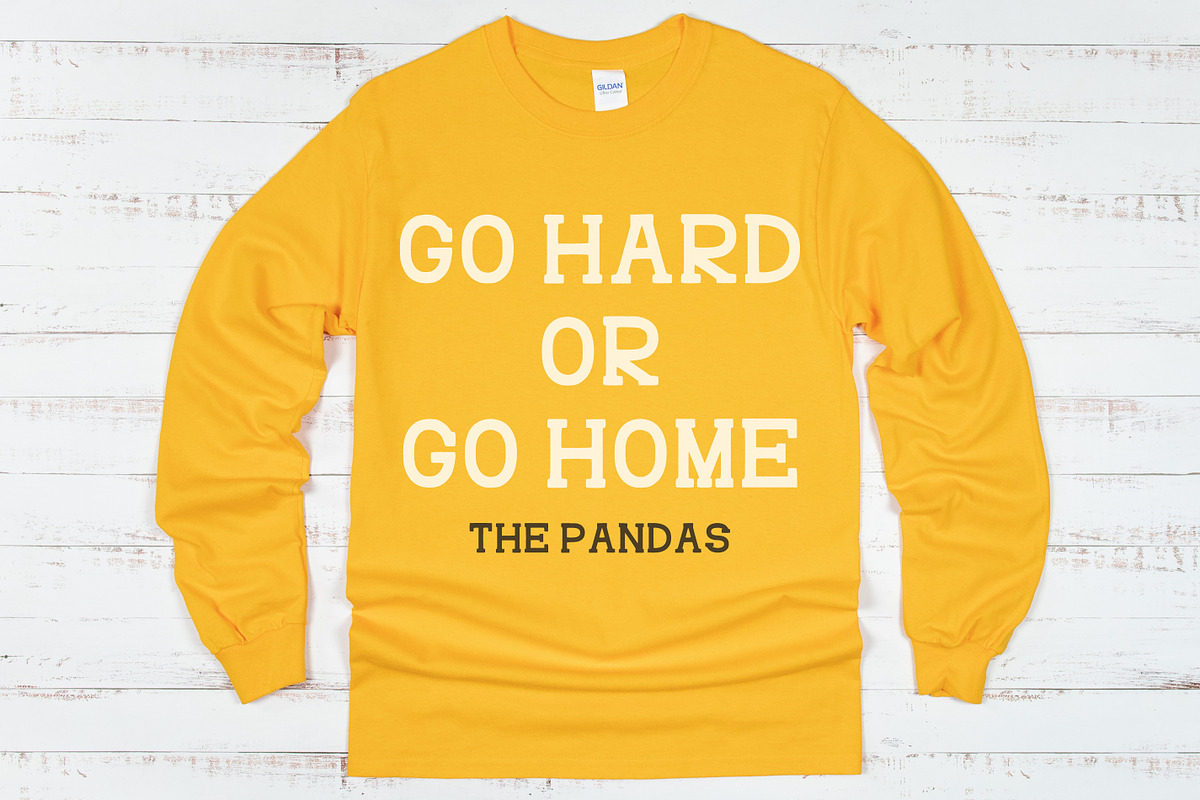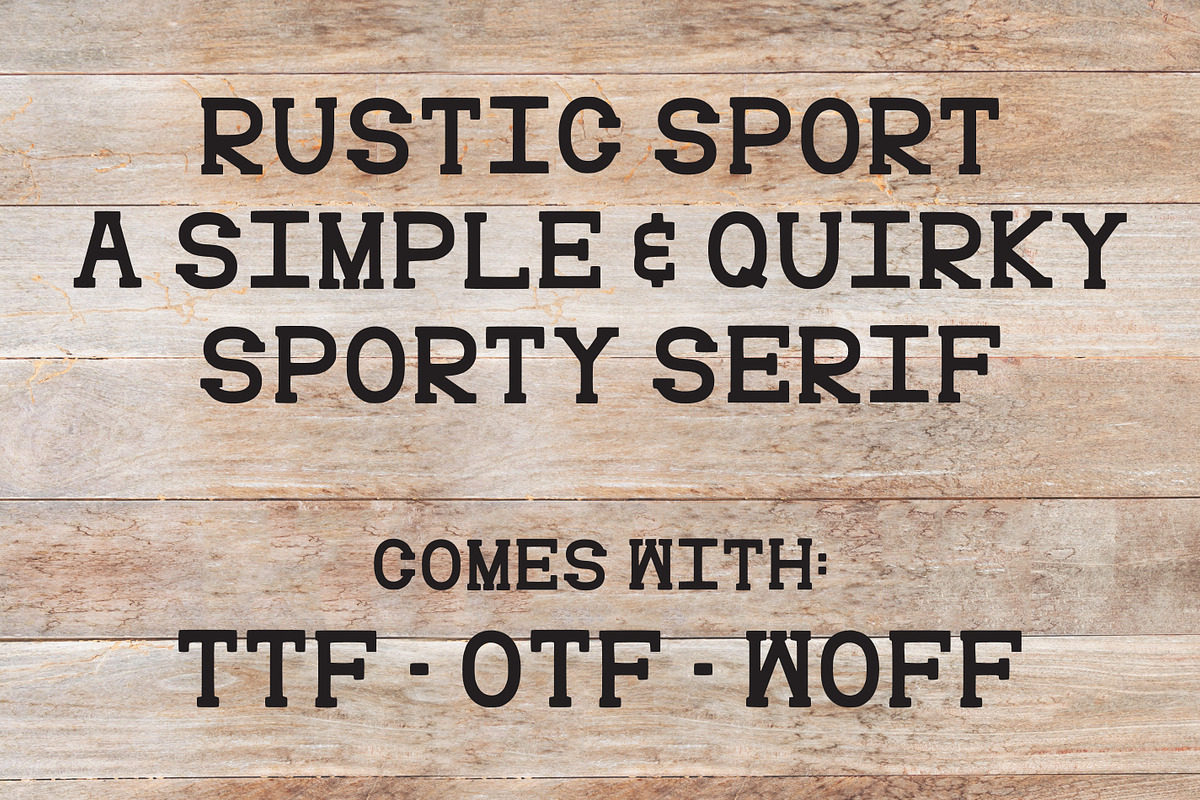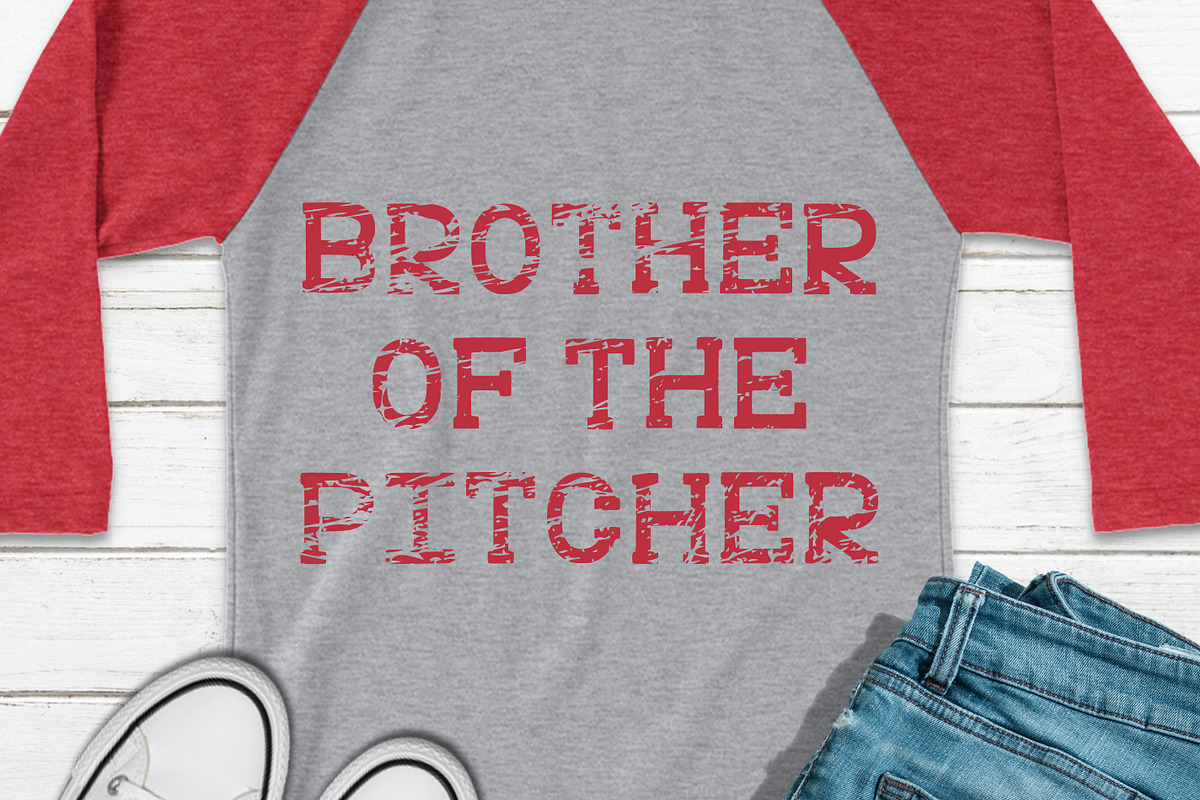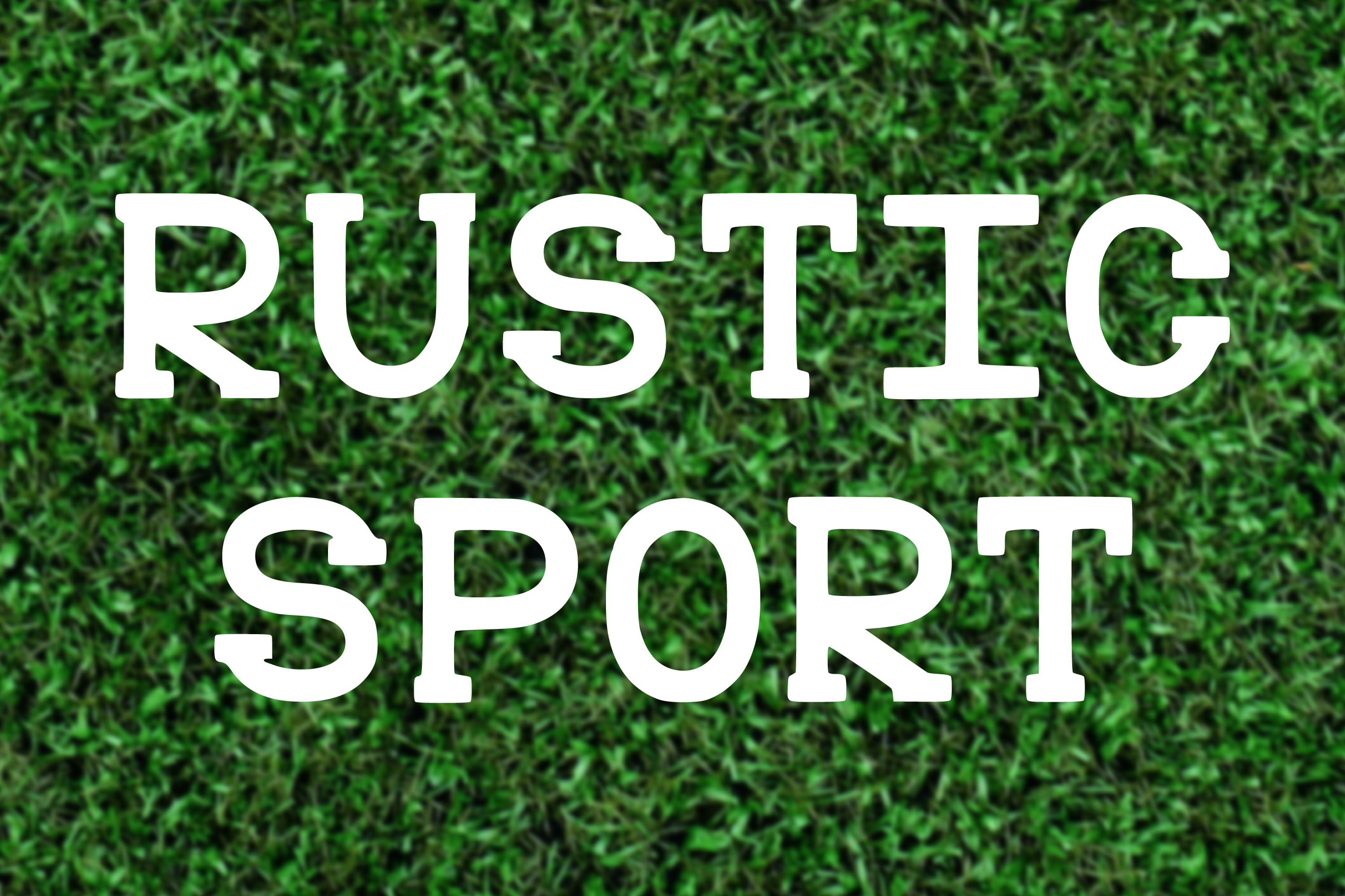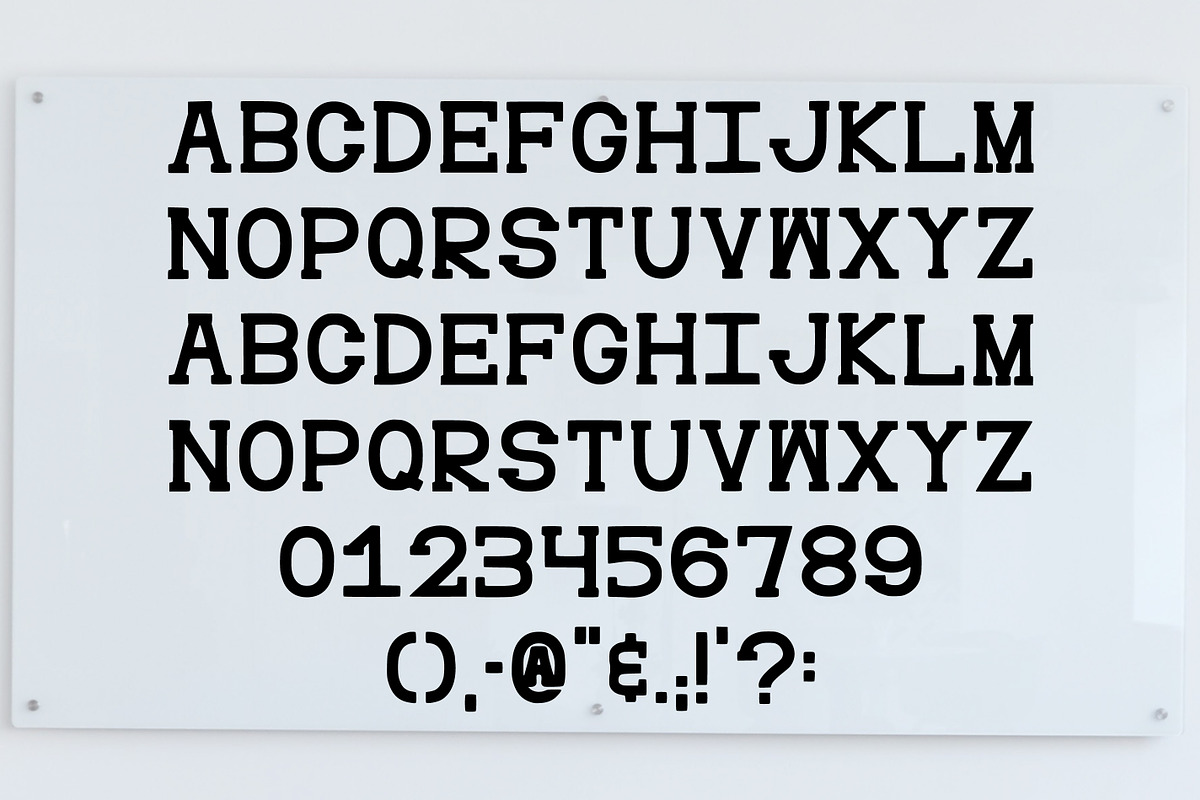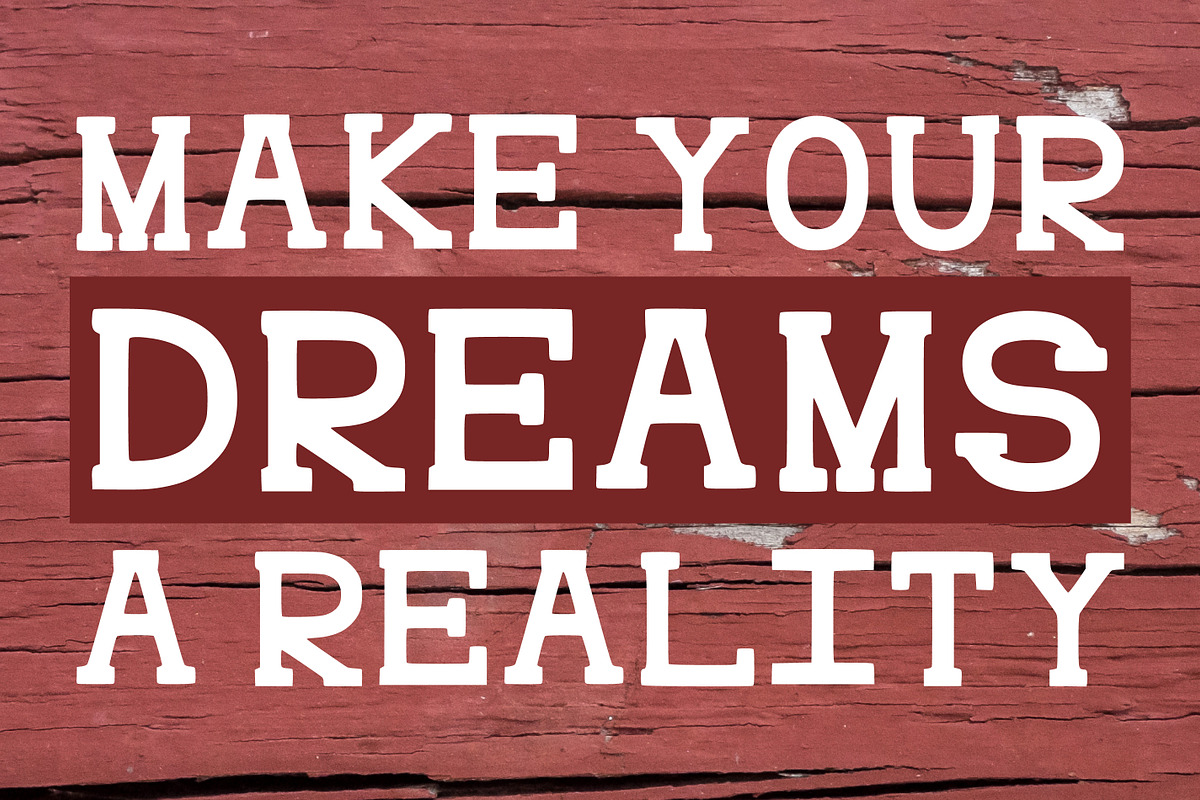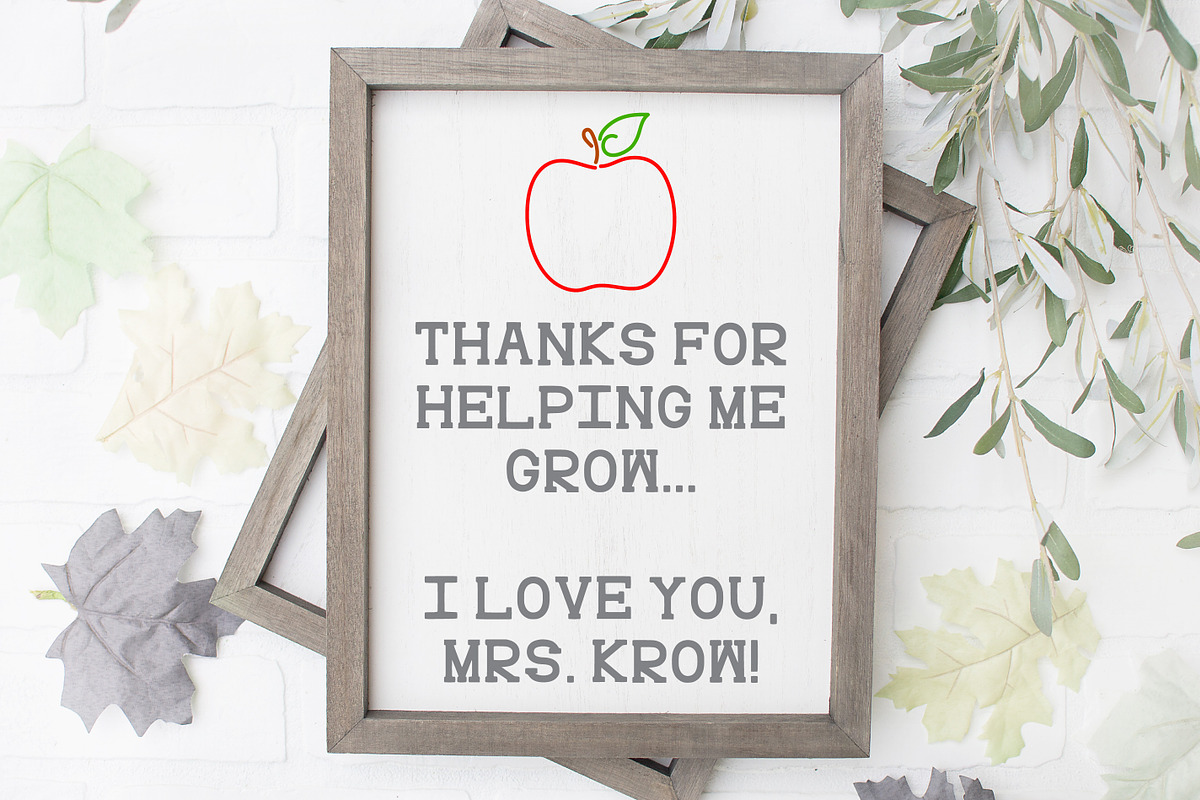
Rustic Sport Font Varsity Team Type
Rustic Sport is a serif font perfectly crafted for varsity sports, athletic games, and teams. This basic serif includes letters A-Z, numbers 0-9, and limited special characters as shown in the listing images.